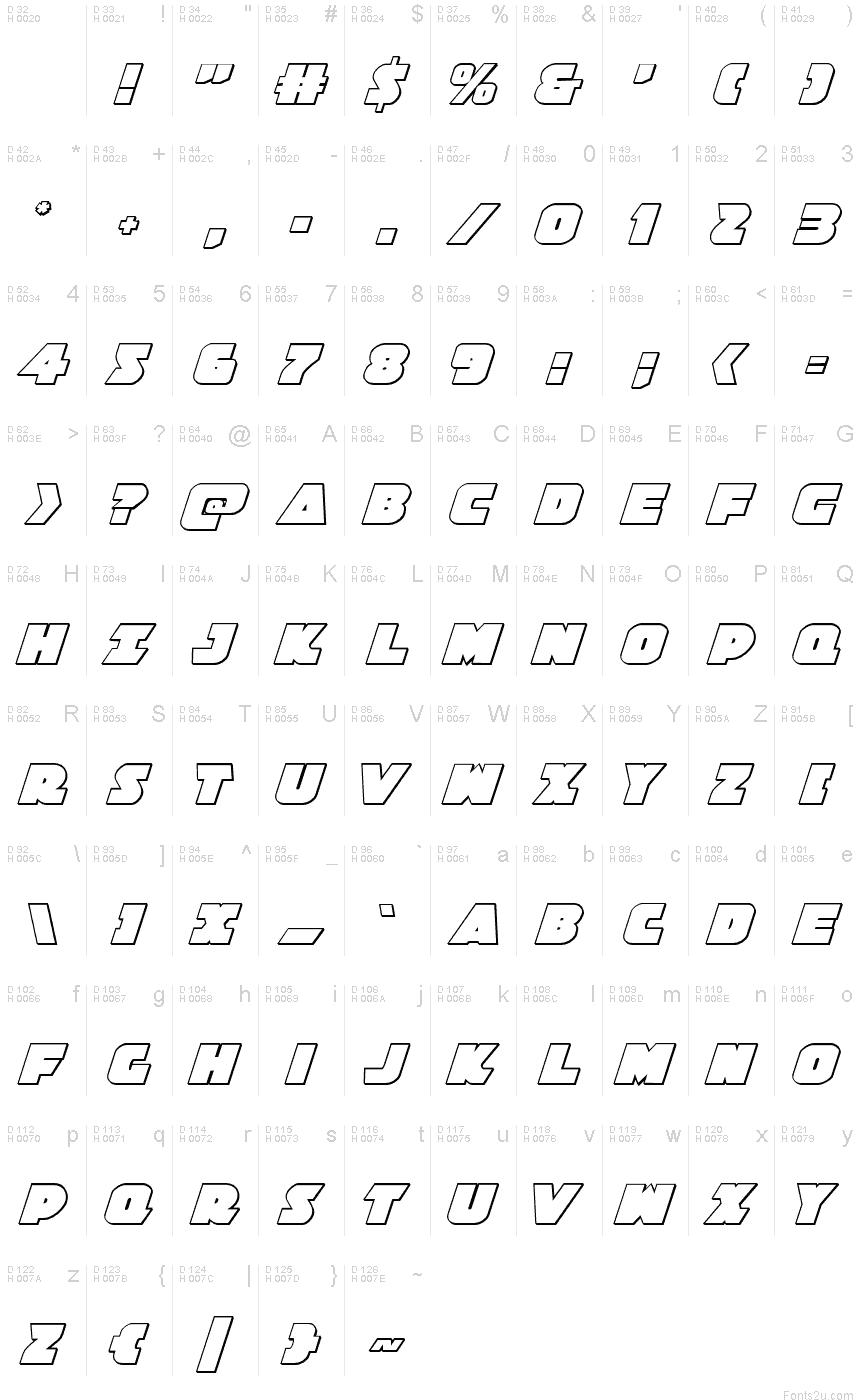
Jedi Special Forces 3D Italic, created by Iconian Fonts in 2012, is a free futuristic 3D display font. Its broad, forward-leaning capitals use sweeping curves, sharp notches, and clipped joins. The outline is crisp and forceful.
Science-fiction action is its clearest territory, making it apt for game promotions, film posters, and esports branding. On magazine covers, the slanted silhouette can turn a feature title into part of the action imagery.
Jedi Special Forces 3D Italic